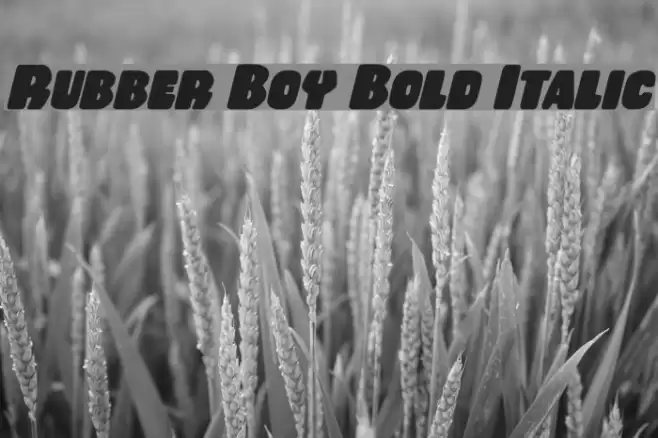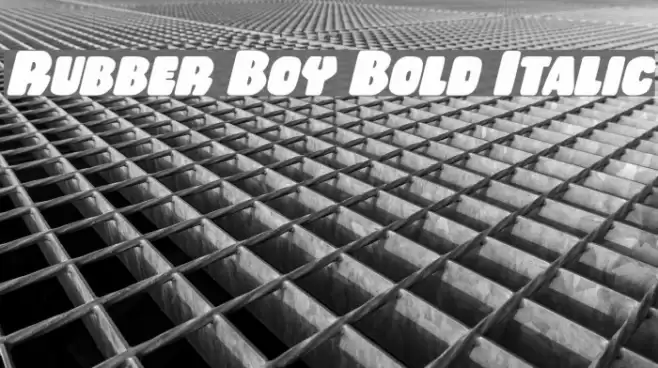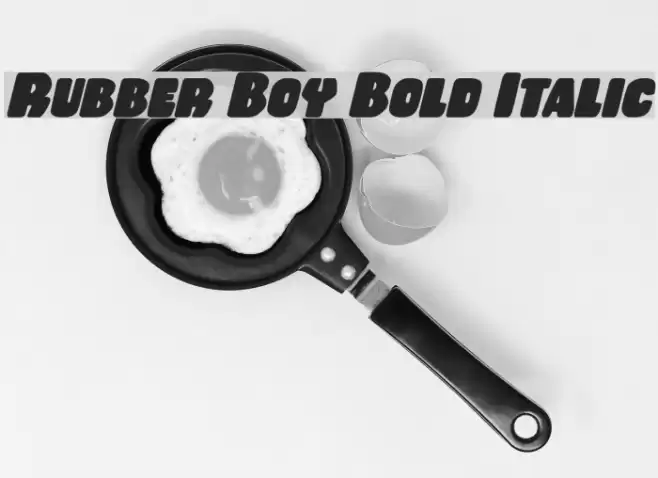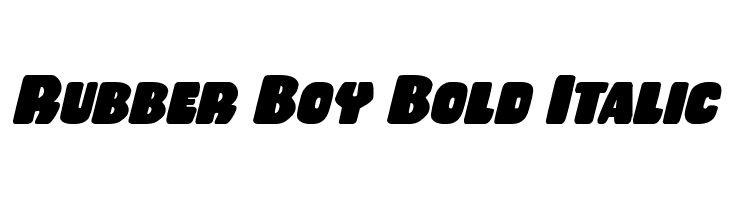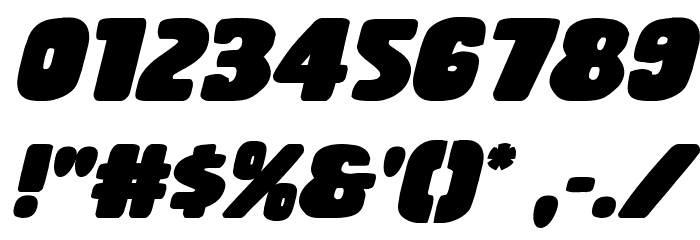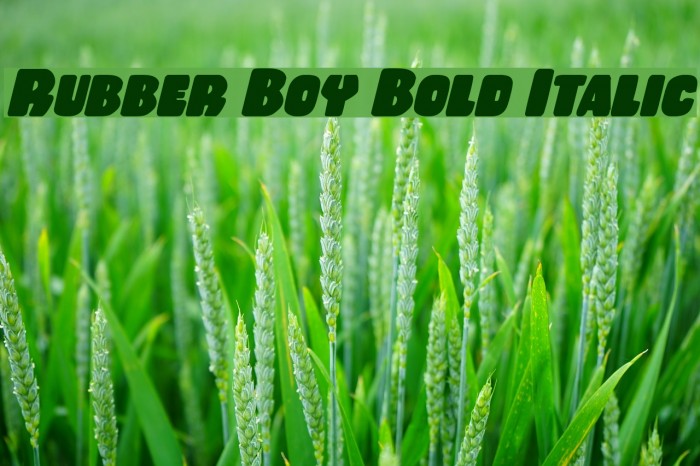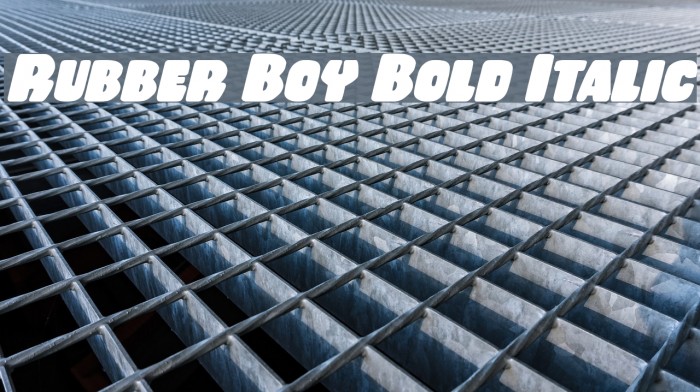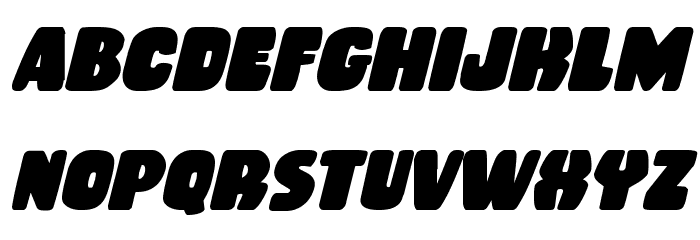
Rubber Boy Bold Italic Font
Rubber Boy Bold Italic Description
This font features a bold and playful style with a distinct italic slant, giving it a dynamic and energetic appearance. The characters are rounded and thick, creating a sense of fullness and impact. The boldness of the letters is complemented by a slight forward tilt, enhancing its lively and informal character. The font maintains consistent stroke thickness throughout, ensuring readability while adding a touch of whimsy. Its unique style makes it suitable for projects that require a fun and engaging typeface. The character spacing is relatively tight, which helps in maintaining a compact and cohesive look. This font is ideal for creative and informal applications, where a bold statement is desired.
A bold, playful, and italic font with rounded characters and tight spacing from Uncategorized fonts.
- Proposed Projects: Ideal for children's books, comic strips, playful branding, and event posters.
- Character Spacing: Tight
- Overall Style: Playful